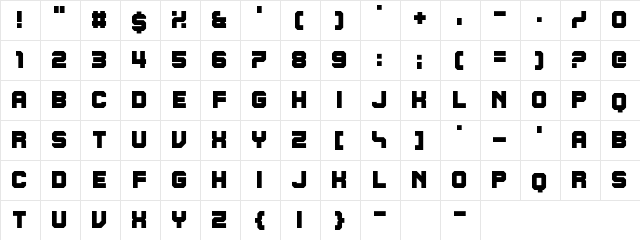
Younger Love Regular
| Designer | NAL |
Design Context for Younger Love Typeface
Younger Love takes a measured approach to typography — its balanced proportions and neutral character make it a reliable workhorse for both digital and print work.